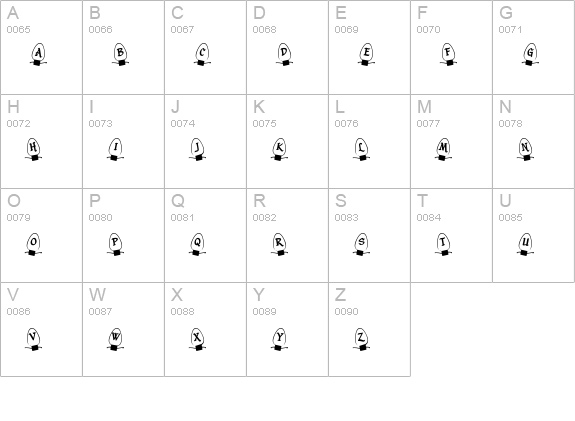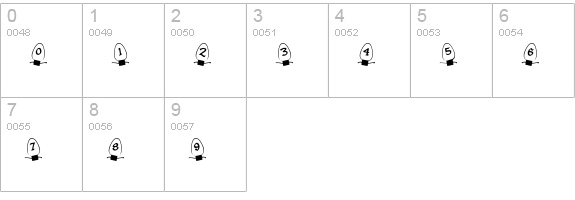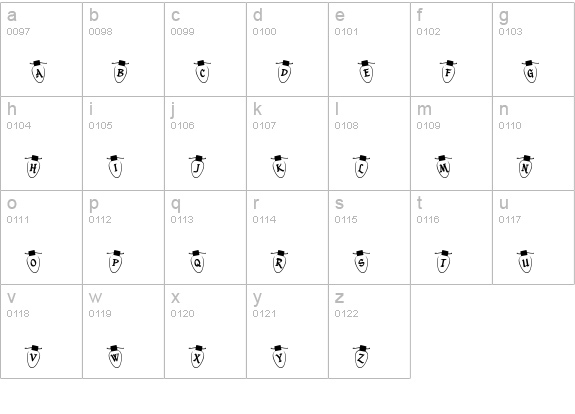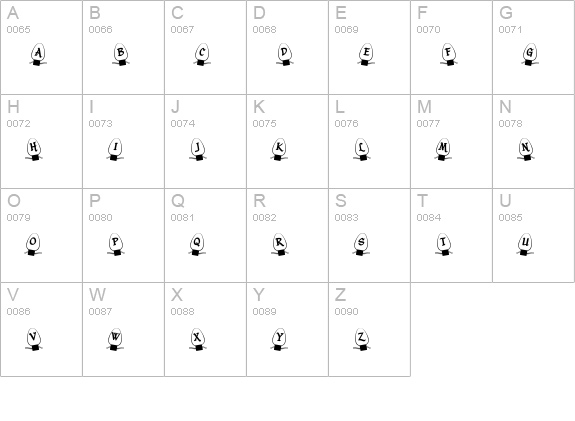
Christmas Lights Outdoor Font Details
Add a touch of festive charm to your designs with Christmas Lights Outdoor font! This unique and playful font features twinkling holiday lights decorating each letter, perfect for adding a cheerful and merry feel to your projects. Whether you're working on Christmas cards, party invitations, or holiday posters, this font will bring a joyful spirit to your creations. Best of all, Christmas Lights Outdoor font is completely free to download at FontsMarket.com! Don't miss this opportunity to add a fun and festive element to your designs this holiday season. Download the font today and spread the Christmas cheer in your projects!